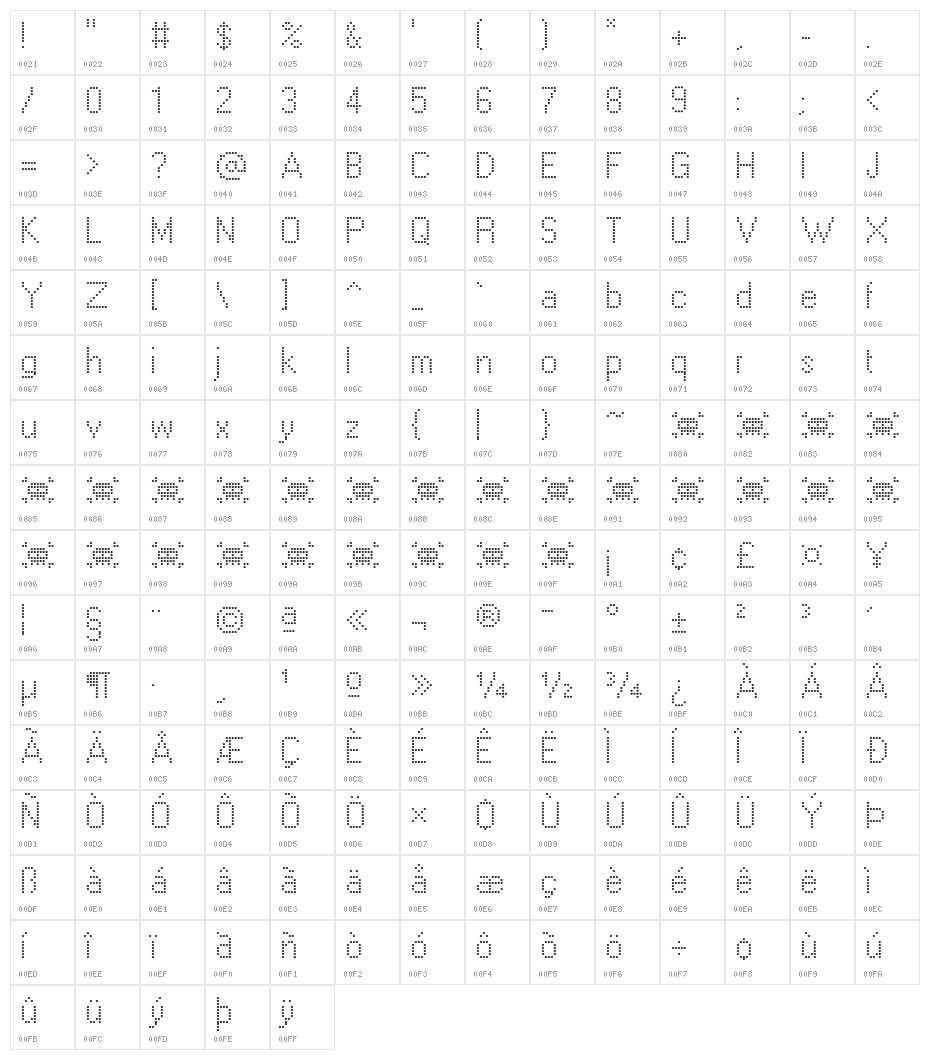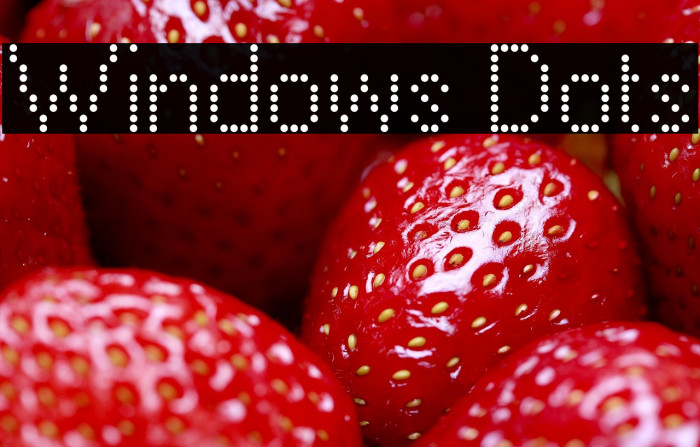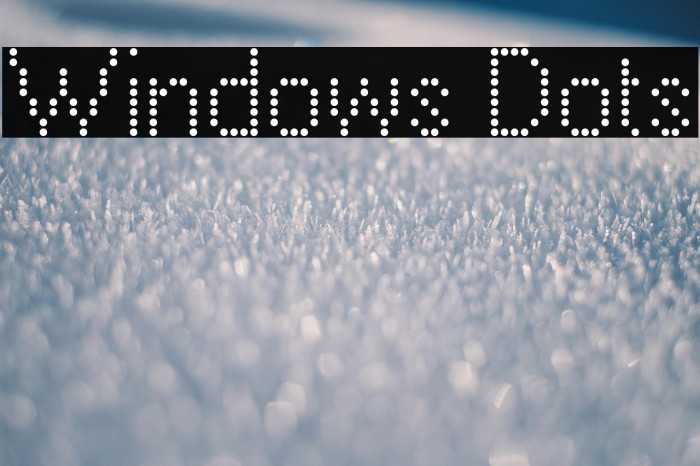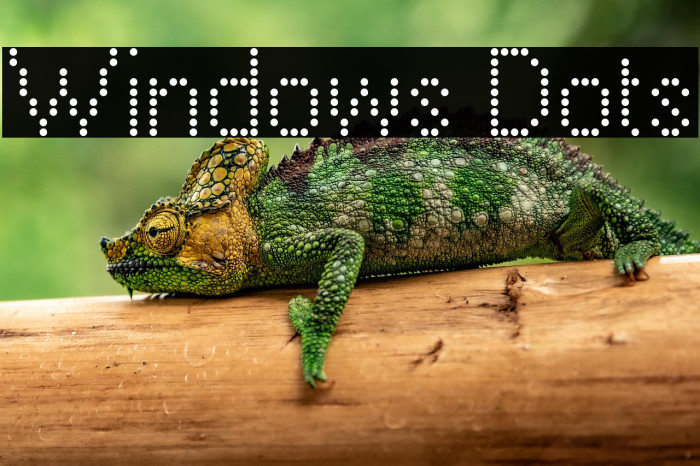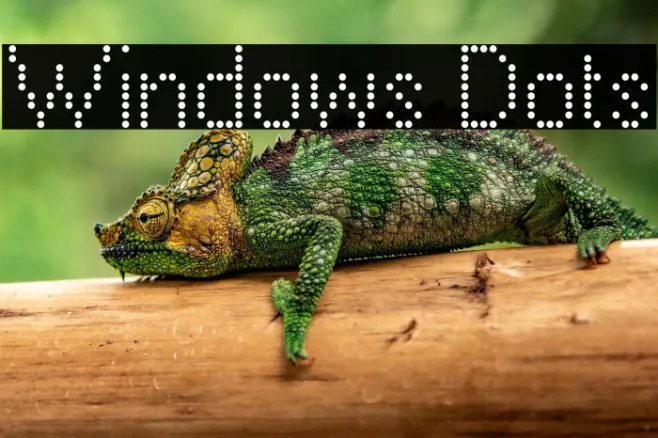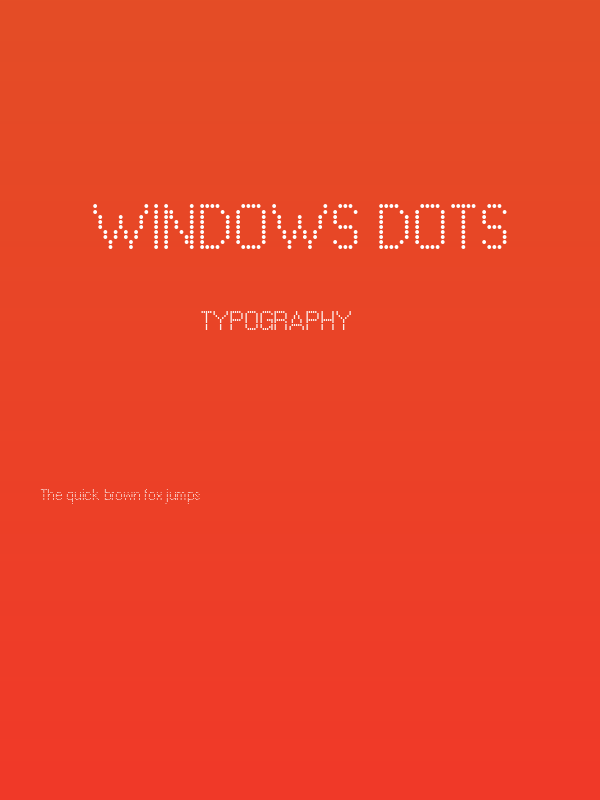
Windows Dots Font
Windows Dots Description
This font features a unique dotted design where each character is composed of evenly spaced dots, creating a digital and modern aesthetic. The uppercase and lowercase letters maintain a consistent structure, with rounded edges formed by the dots. Numbers and special characters follow the same dotted pattern, ensuring uniformity across the font. The spacing between the dots is consistent, giving the font a clean and organized appearance. This style is reminiscent of digital displays or LED signs, making it suitable for projects that require a futuristic or technological feel.
| Use Case | Headlines, Logos, Digital Displays |
| Proposed Projects | Ideal for digital displays, tech-themed designs, modern art projects, and creative branding. |